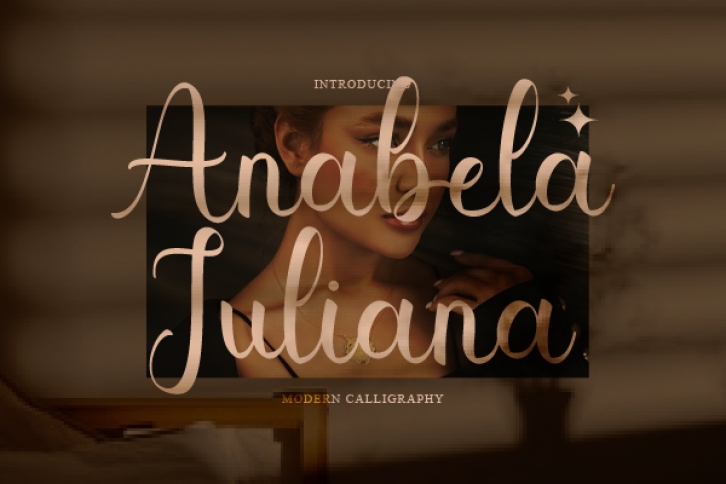
Anabela Juliana is a sweet and cursive handwritten font. This gentle font will look gorgeous on a variety of design ideas. It will add a joyful and romantic touch to each of your projects!